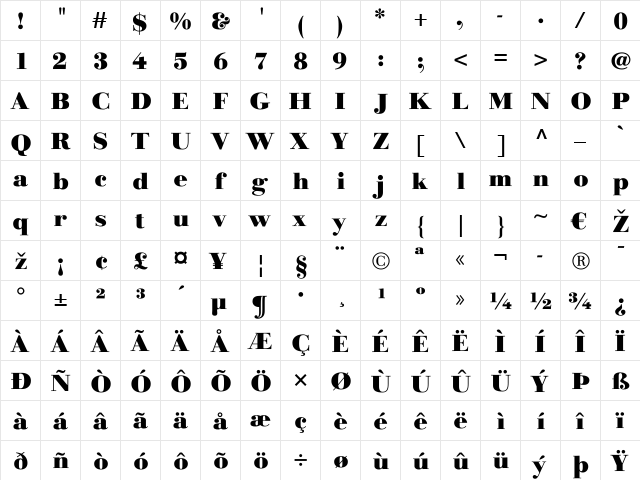
LTGianotten Medium Bold Font Preview
LTGianotten Medium Bold
LTGianotten Medium Bold Font Details
| Designer | Antonio Pace |
Design Context for LTGianotten Medium Typeface
LTGianotten Medium is a composed and adaptable typeface that performs quietly and consistently across a wide range of design contexts. Its bold stroke weight gives it real presence on the page.